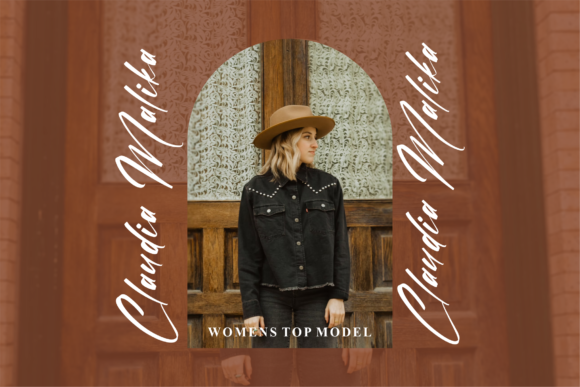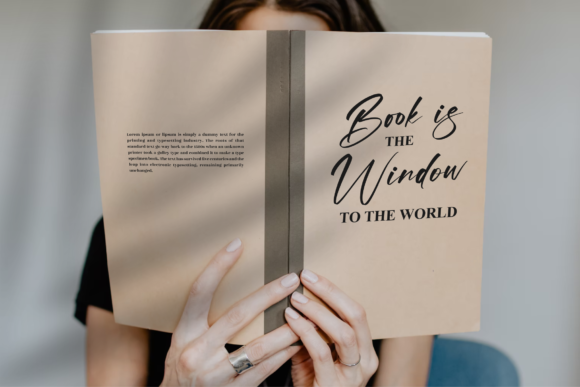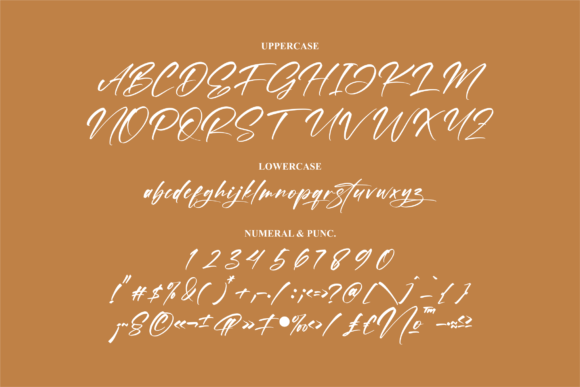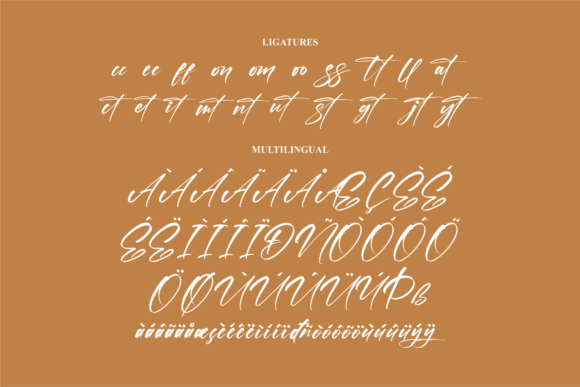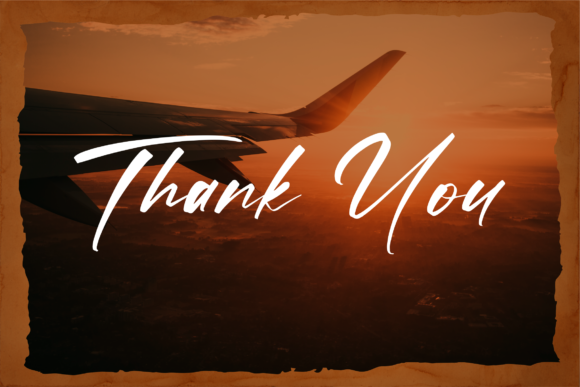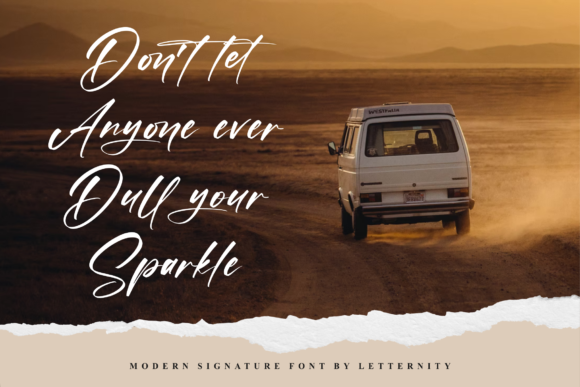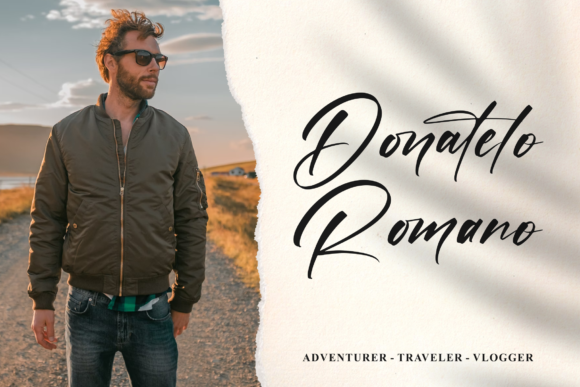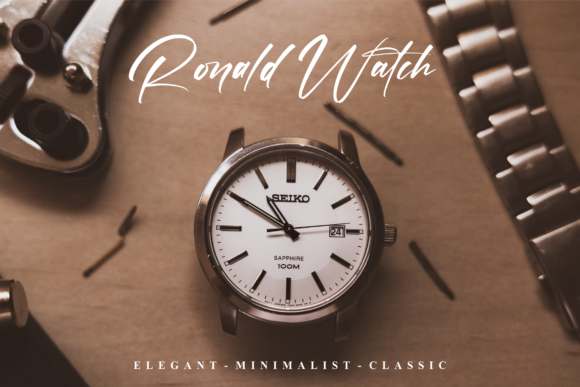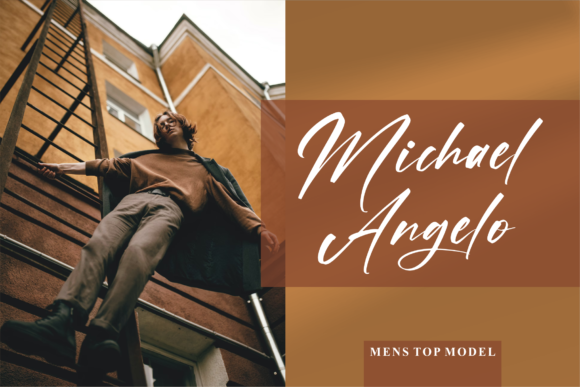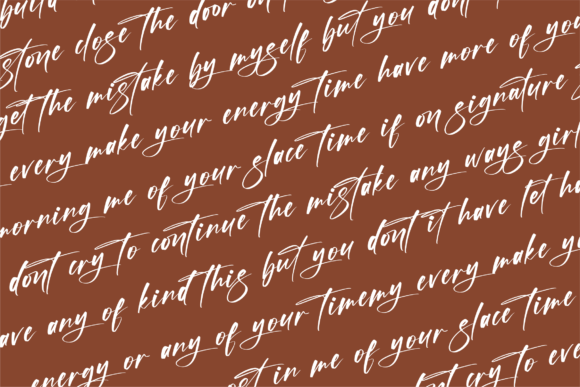
Masterly Font
About Masterly Font
Masterly is an elegant and dainty handwritten font that features sweet and delicate swashes. This original look will appeal to a wide range of crafty ideas, from letterheads and titles, to stationery. This font is PUA encoded which means you can access all of the glyphs and swashes with ease!